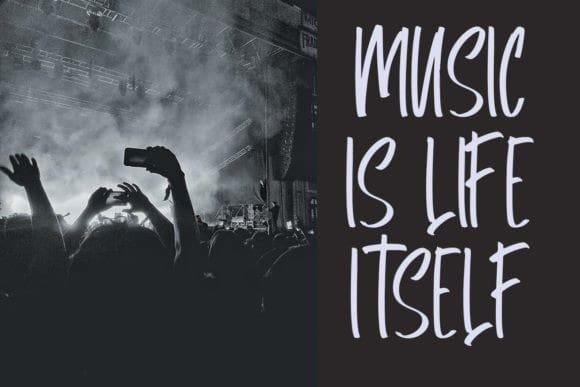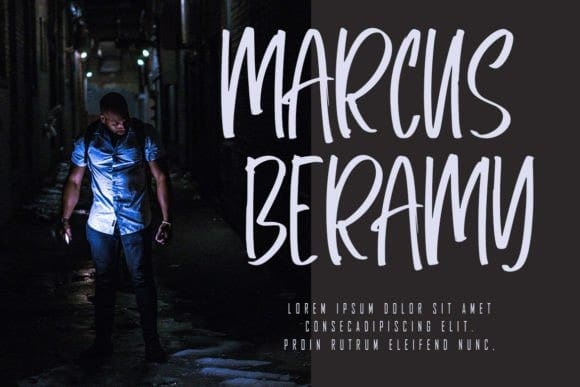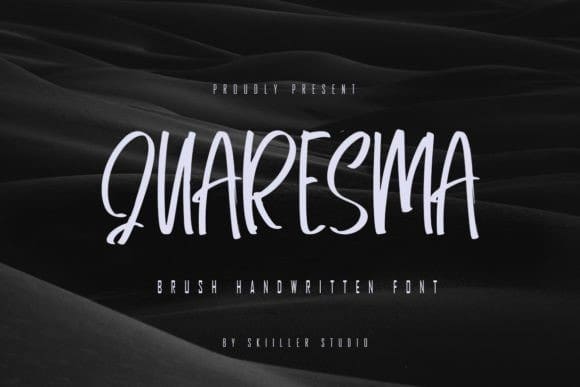
Quaresma Font
Quaresma Font is a handwritten signature script with a natural flow and beautiful style. No matter the topic, this font will be an incredible asset to your fonts’ library, as it has the potential to enhance any creation.